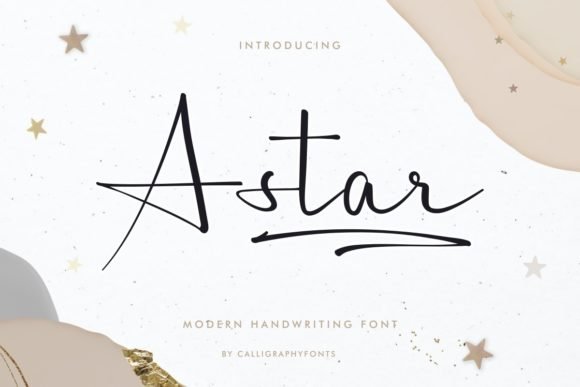
A Star Font: Adding a Touch of Elegance to Your Designs
Remember that moment when you finally nailed the perfect design for your client’s project, and it all came together in a beautiful, harmonious way? That feeling is exactly what A Star Font aims to evoke in your work. This lovely script font is designed to bring a touch of elegance and sophistication to your designs, making it perfect for those who crave a refreshing and refined look.
A Star Font is more than just a pretty face – it’s a valuable tool for designers who want to add a personal touch to their work. With its delicate lines and flowing curves, this font is sure to impress your clients and leave a lasting impression. Plus, being PUA encoded means you can access all the glyphs and swashes with ease, giving you endless possibilities to get creative.
- Unique Characteristics: A Star Font features a unique, modern design with a touch of elegance, making it perfect for use in corporate branding, advertising, and editorial content.
- Language Support: Supports a wide range of languages, including Latin, Cyrillic, and Greek alphabets, making it a versatile font for global applications.
- Font Style: Available in regular, italic, bold, and bold italic styles, offering flexibility for different text formats and emphasis.
A Star Font Review
A Star Font is a clean and elegant font that can add a touch of sophistication to any project. It works well ✨ for headings and titles, providing a clear and easy-to-read experience. The font’s curves and lines are well-balanced, making it perfect for designing logos, posters, and other marketing materials.
- The font’s legibility is excellent, even at smaller font sizes.
- A Star Font is highly customizable, allowing designers to adjust the font’s weight, spacing, and style to suit their needs.
- The font is also highly versatile, suitable for a wide range of industries and designs.
However, there are some limitations to consider ⚠️:
- A Star Font may not be the best choice for body text, as it can be a bit too ornate and distracting.
- The font’s bold weight can sometimes appear too heavy, overpowering the rest of the design.
Overall, I think A Star Font is a solid addition to any designer’s toolkit. While it may have some limitations, its clean design and high level of customization make it a great choice for a wide range of projects. With some careful selection and adjustment, A Star Font can help take your designs to the next level.
Tips for Getting the Most Out of A Star Font
Use A Star Font for titles and headings to add a touch of whimsy to your design. Pair it with bold or italic fonts to create a visually appealing contrast. Experiment with different font sizes and colors to create a unique look.
A Star Font is ideal for children’s books, nursery decor, and educational materials. It’s also a great choice for astrology-themed designs, such as zodiac signs and star charts. Use it to add a touch of magic and wonder to your designs.
Q: What is the character set of A Star Font?
A Star Font includes a comprehensive character set, including Latin, Cyrillic, Greek, and extended Latin characters, as well as punctuation and symbol glyphs. The font also includes support for OpenType features, such as ligatures, fractions, and stylistic sets.